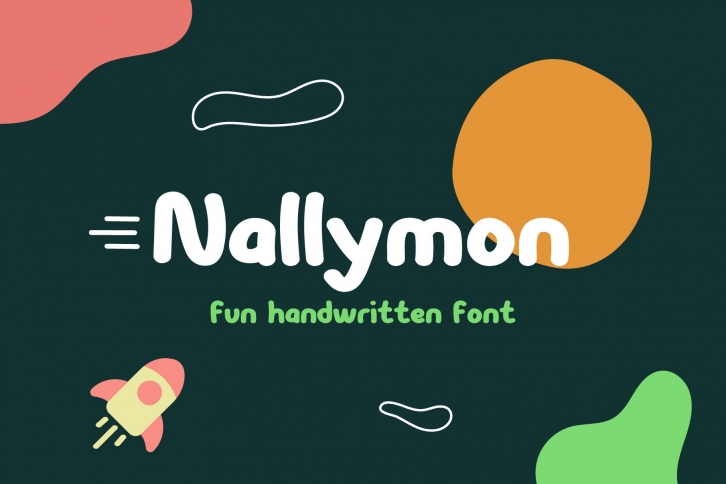
Nallymon is a playful and cute handwritten font. Whimsical and a bit quirky, this font will brighten up each of your designs. Add it confidently to your projects, and you will love the results.